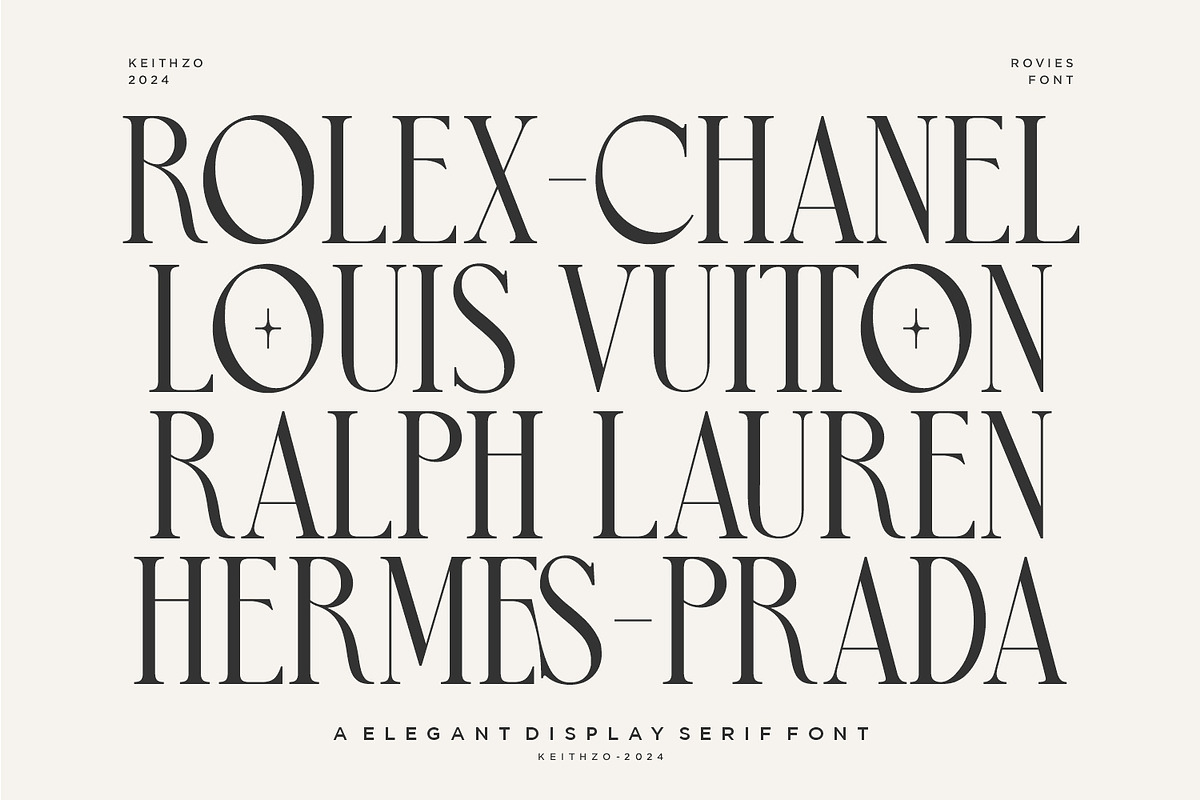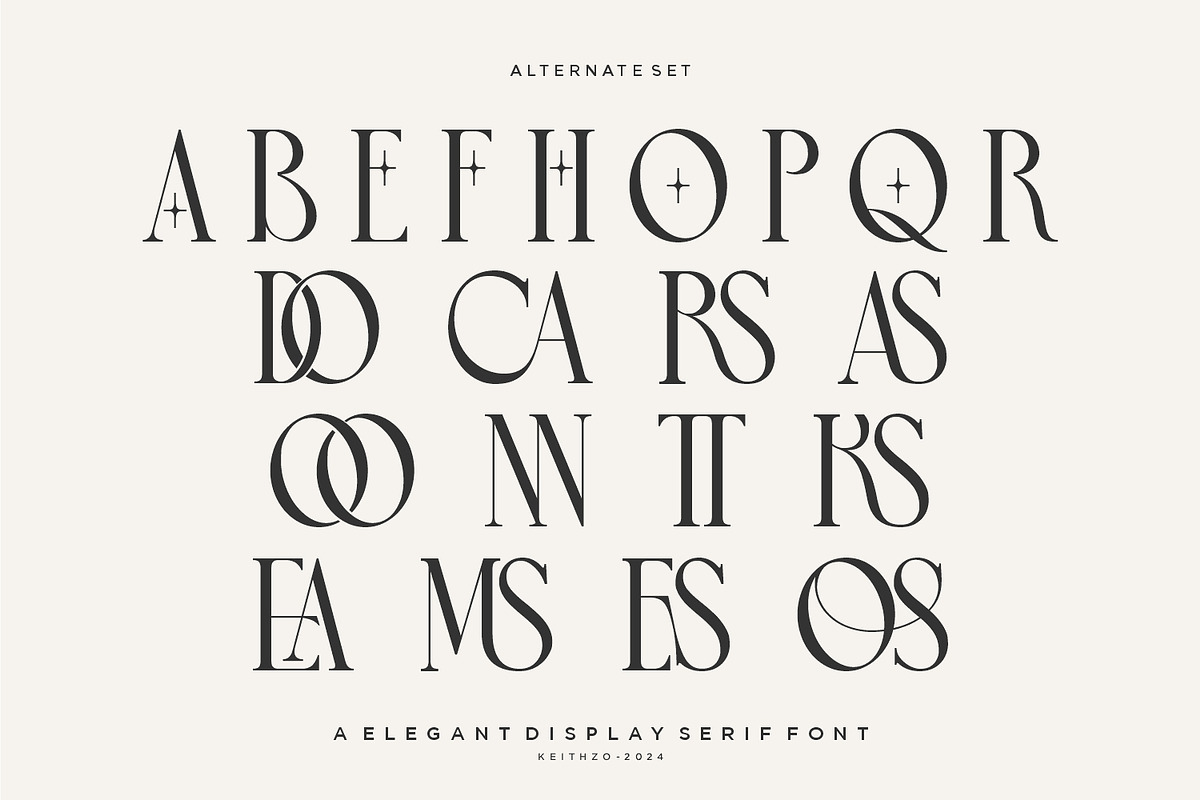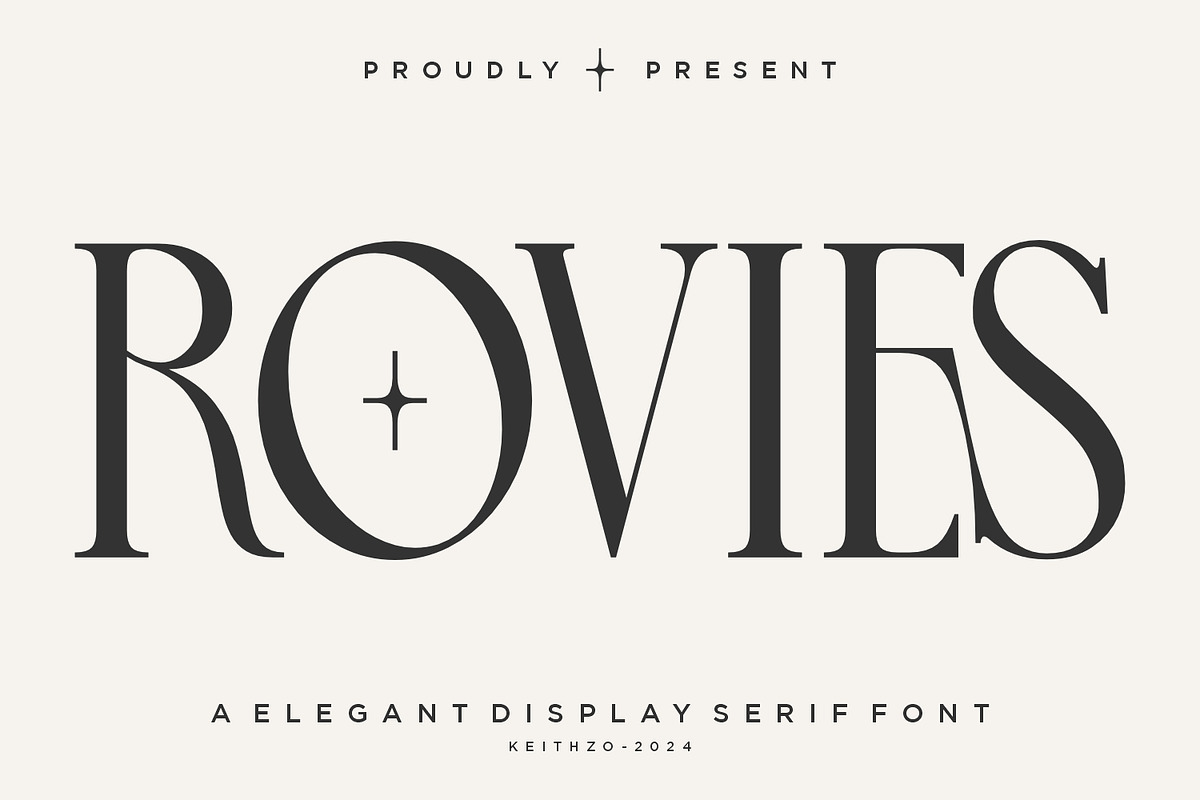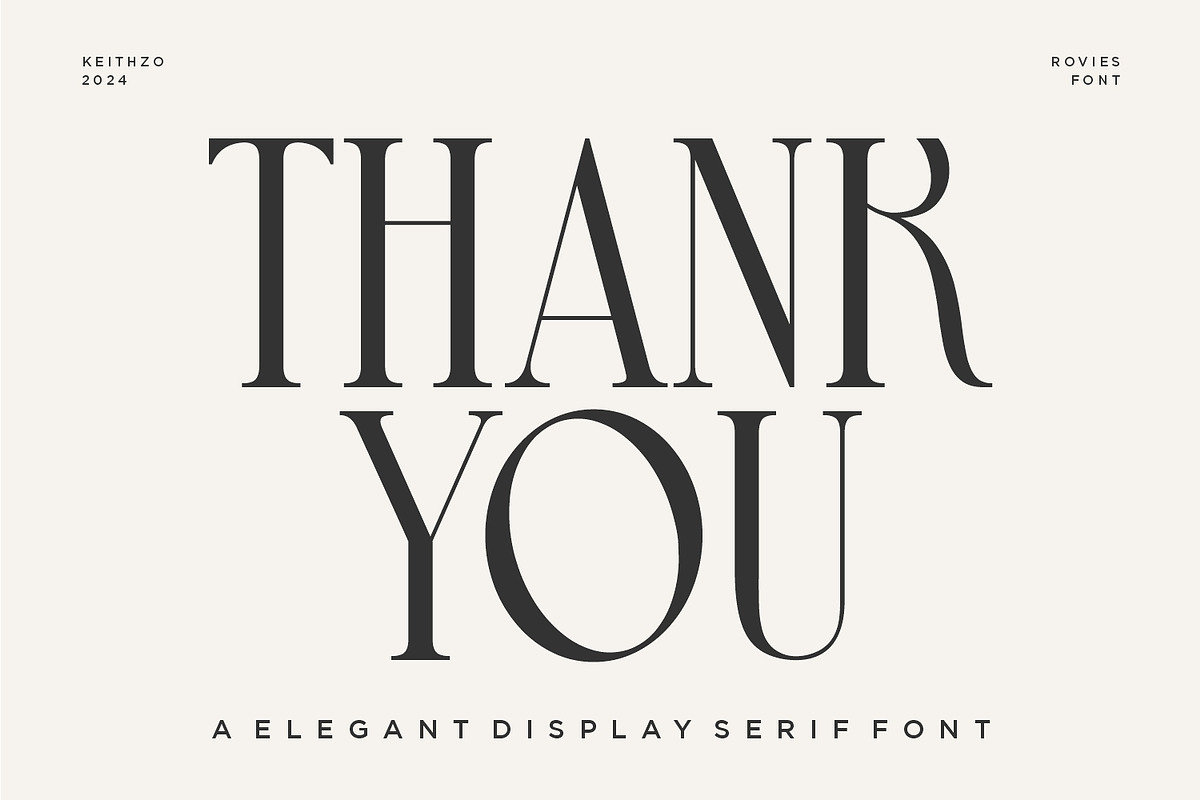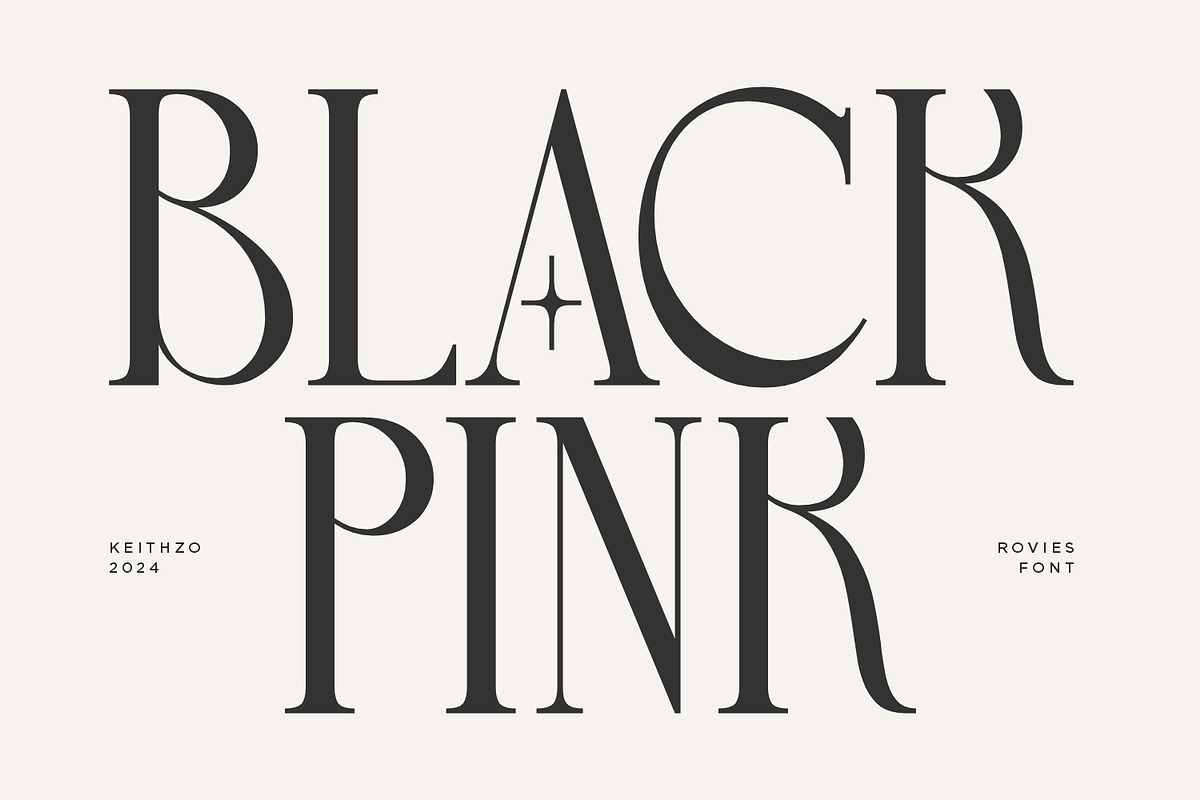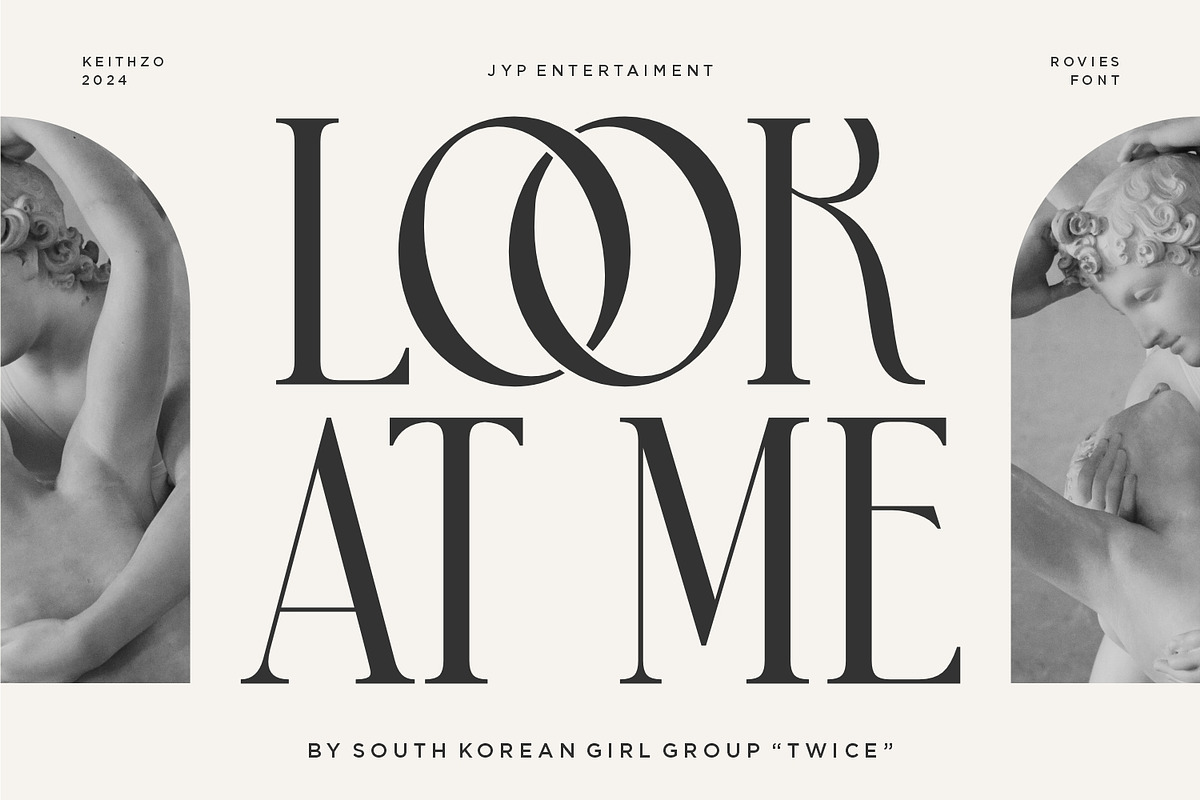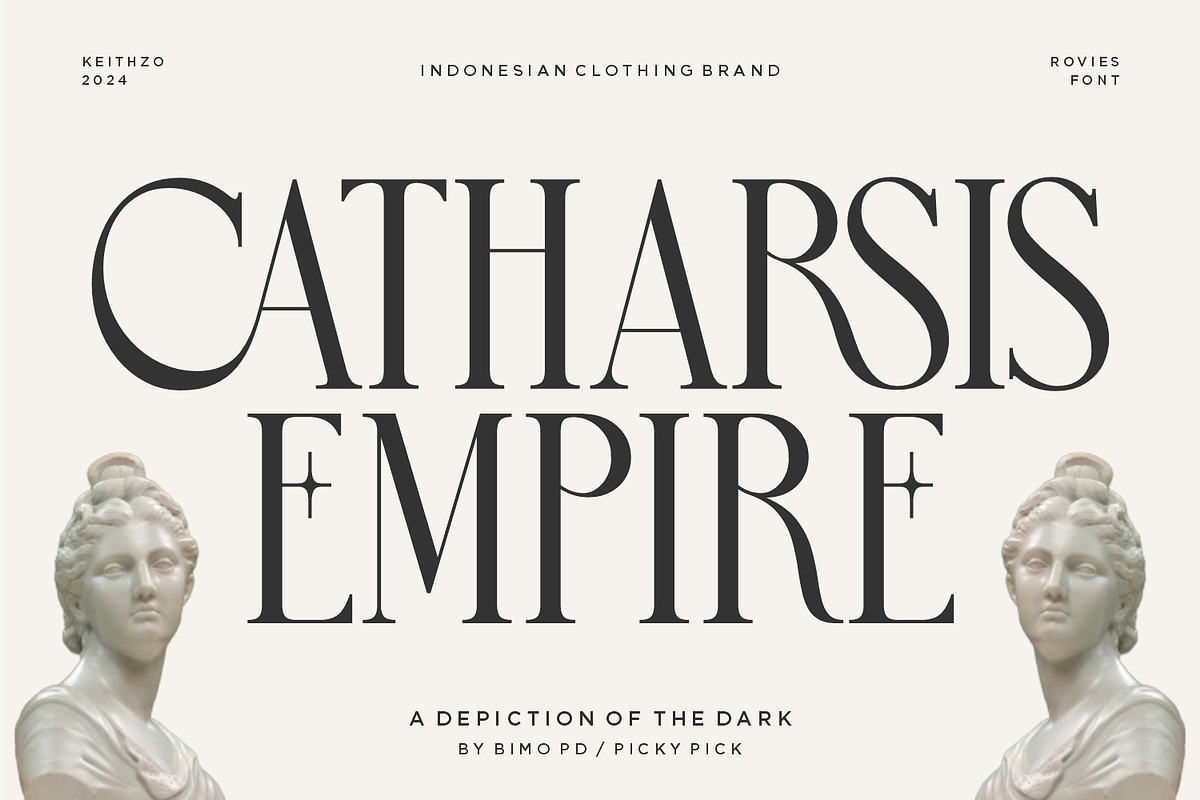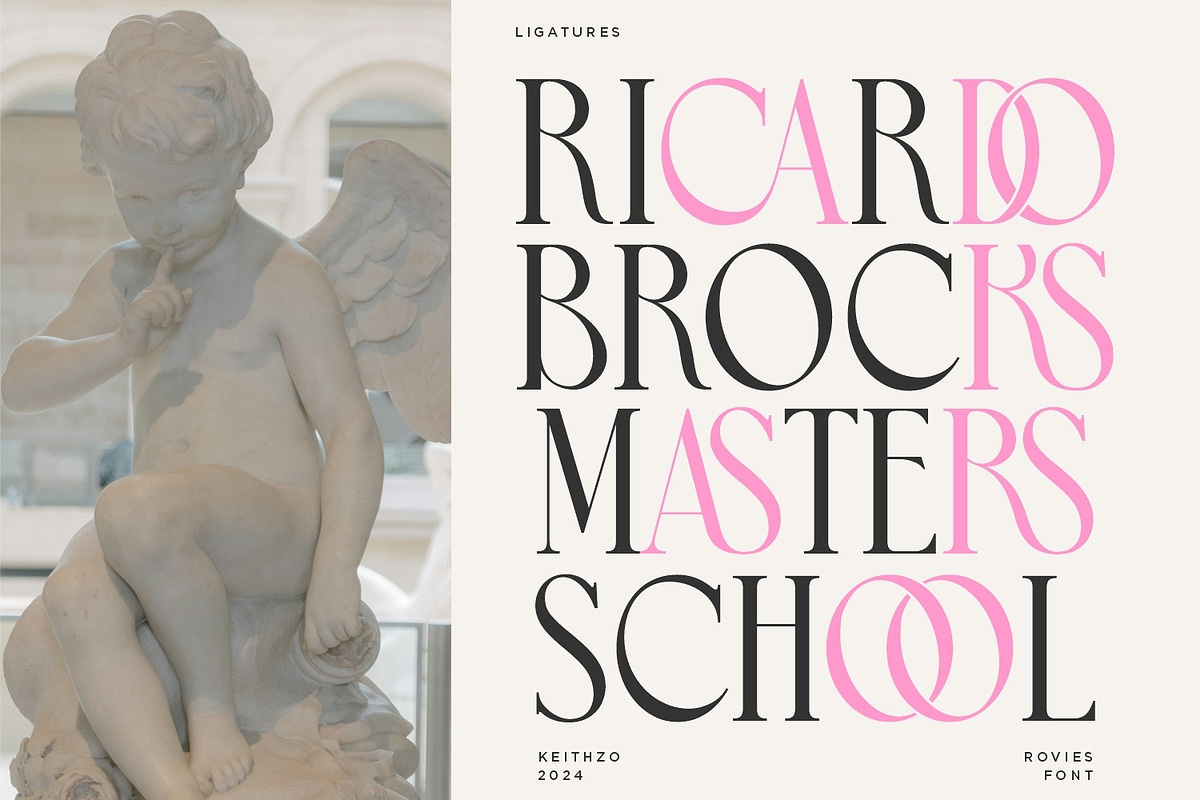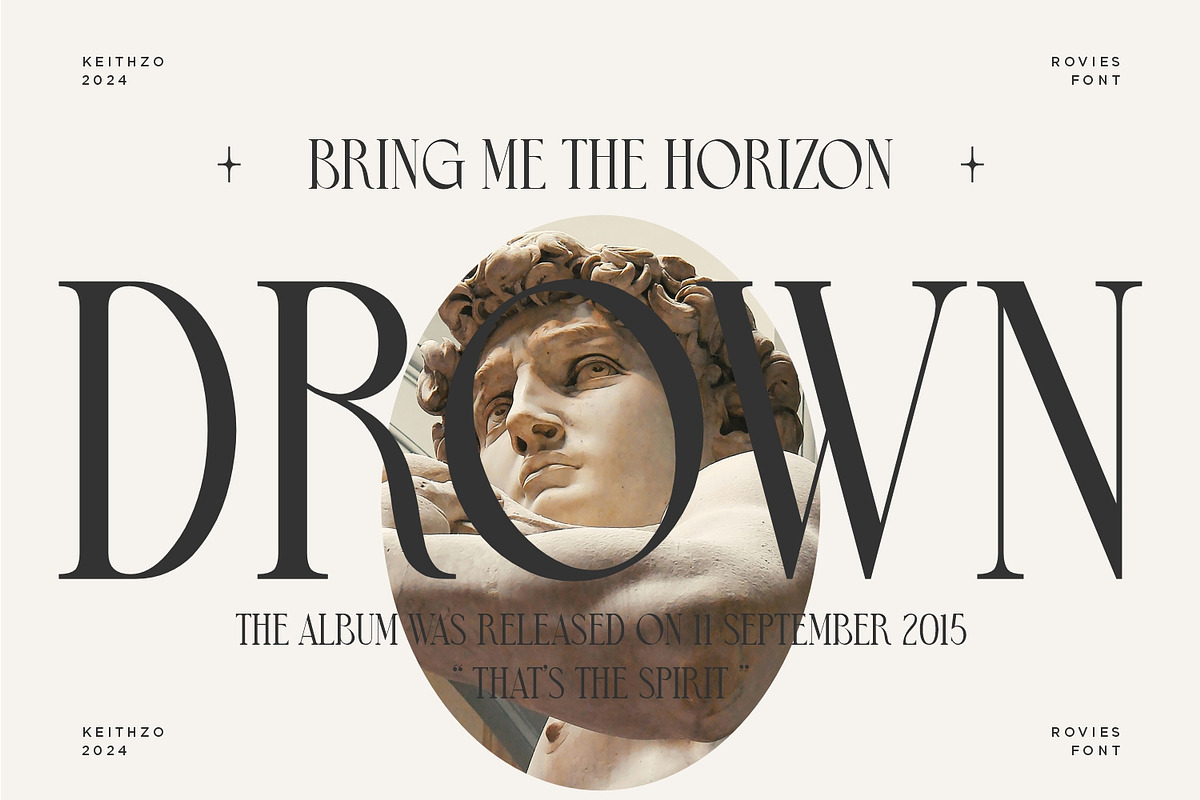
Rovies - Elegant Serif Font
Elevate your project with an attractive and elegant serif font. Rovies sophisticated and refined curves exude a sense of luxury and professionalism, making it the perfect choice for any high-end design Experience the charm of Rovies font, a visually stunning typography with a touch of elegance. Rovies font impeccably breathes life into clothing logos, lending each design an irresistible aesthetic allure. Let it serenade the cover of your music albums with its elegance, or allow it to captivate your readers on posters and magazines. A star in the realm of digital space, this exquisite typeface makes your social media posts vibrant and alluring. The dynamic yet versatile character of Rovies font ensures it is the typography of choice for creatives seeking to make a bold style statement. This font is PUA encoded which means you can access all of the amazing glyphs and ligatures with ease!